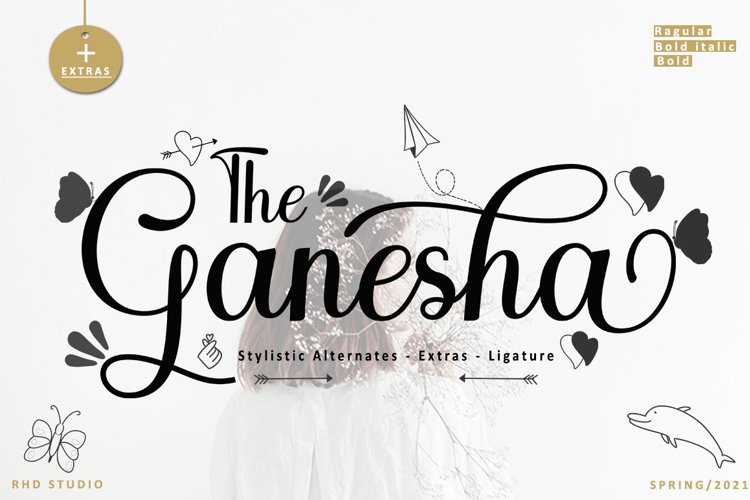
The Ganesha is a smooth, elegant and flowing handwritten font. It has a very balanced character and as a result, it fits well with a variety of designs. The Ganesha features varied baseline, smooth lines, beautiful glyphs, and stunning alternatives. Add in your most creative ideas and see how they make it happen!